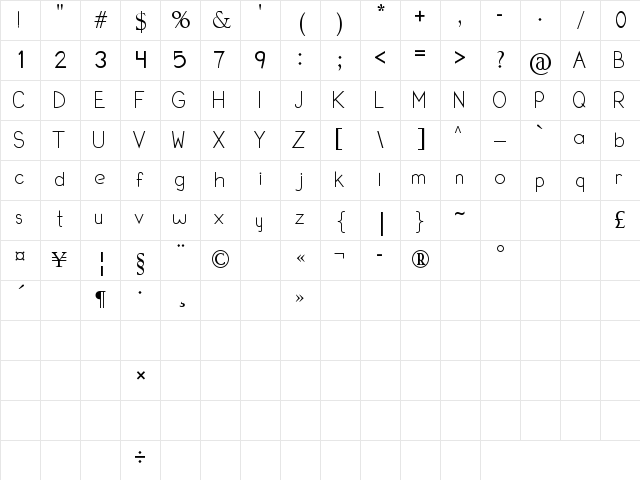
Modeno LX Regular
Design Context for Modeno LX
Modeno LX is a composed and adaptable typeface that performs quietly and consistently across a wide range of design contexts.
Pro Tip: Use Modeno LX in both headline and body roles to test its range before committing to a single application.